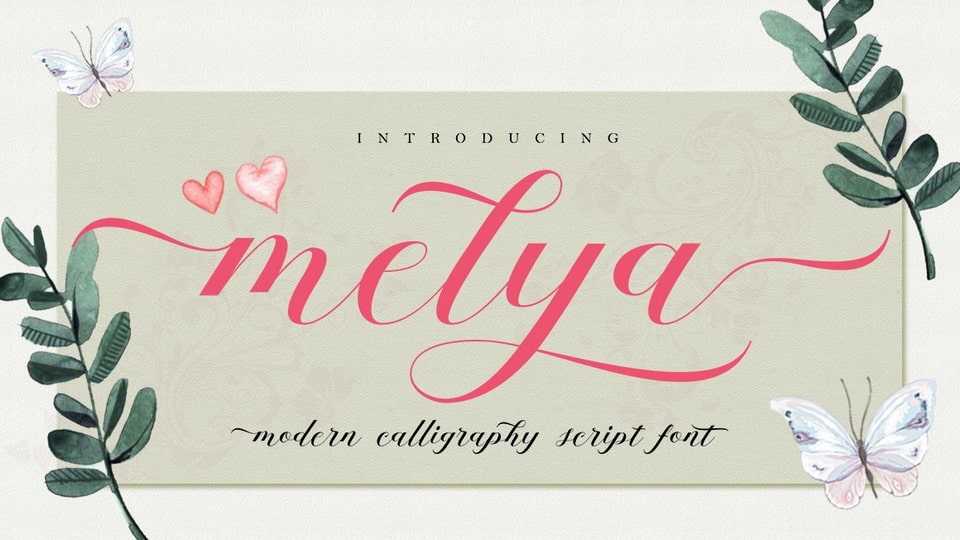
Download Melya Script font, a cute, yet elegant handwritten font with an undeniable charm. Use it for any design project that needs a light and authentic touch.